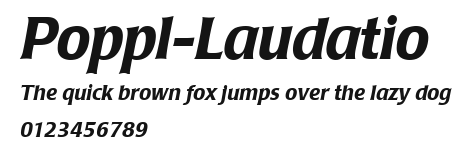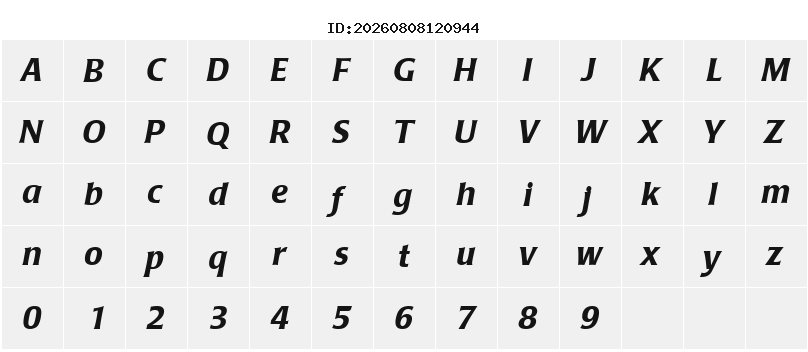
Poppl-Laudatio Preview
• Font Name: Poppl-Laudatio
• Font Style: ItalicBold
• Full Font Name: Poppl-Laudatio Medium Italic
• PostScript Name: PopplLaudatio-MediumItalic
• Manufacturer: Adobe Systems Incorporated
About Poppl-Laudatio.ttf
Poppl-Laudatio.ttf is a modern, elegant sans-serif font designed for ultimate readability and visual harmony. Perfect for branding, headlines, web design, and print materials.